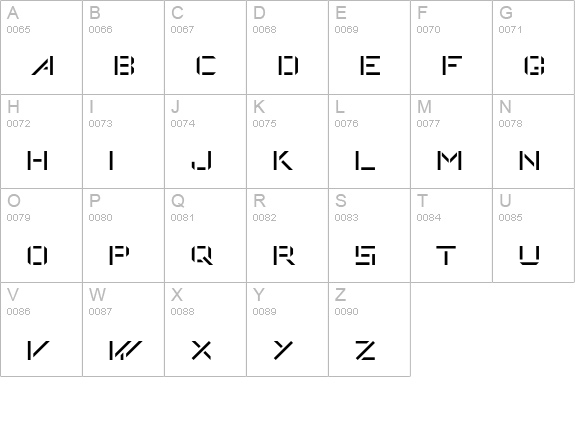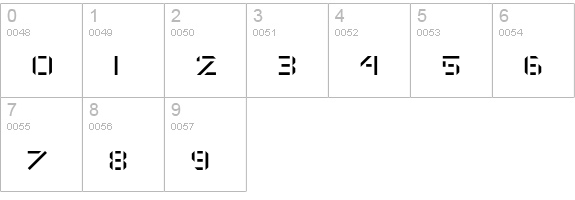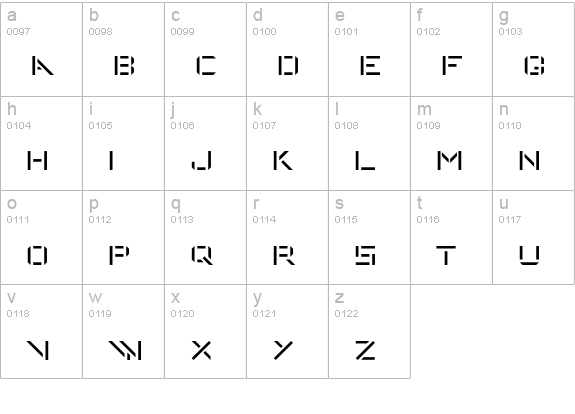
DeStijl Stencil Font Details
DeStijl Stencil font is a modern and minimalist typeface inspired by the iconic De Stijl art movement. This versatile font features clean lines, geometric shapes, and a bold stencil design that exudes sophistication and style. Perfect for creating eye-catching headlines, posters, and branding materials, DeStijl Stencil font is sure to make a statement. What makes DeStijl Stencil font even more appealing is that it is available for free download at FontsMarket.com. This means you can easily access this unique typeface and use it in your personal and commercial projects without any cost. Embrace the timeless elegance of DeStijl Stencil font and elevate your designs with its sleek and contemporary aesthetic.